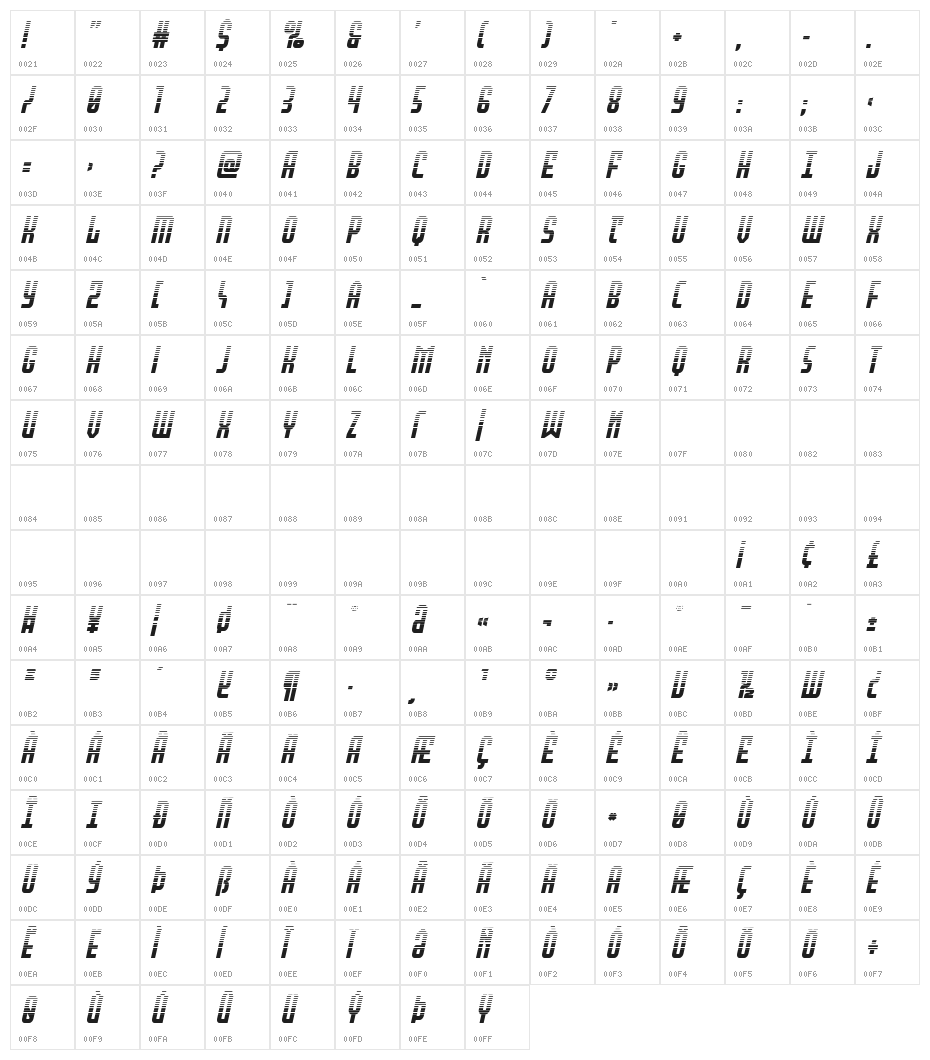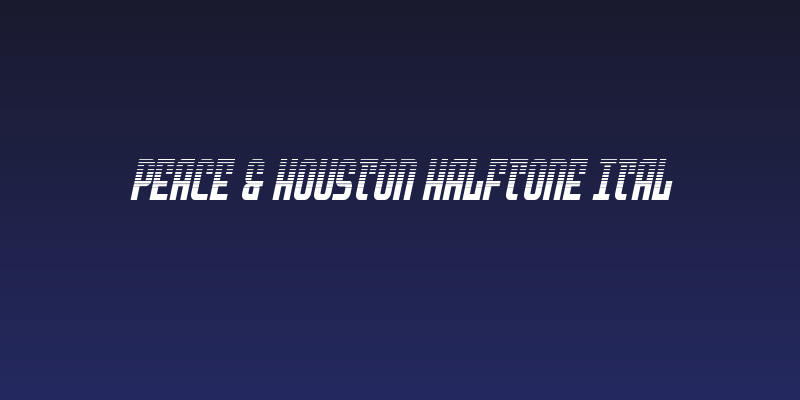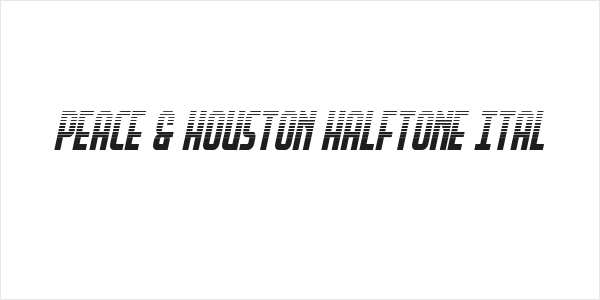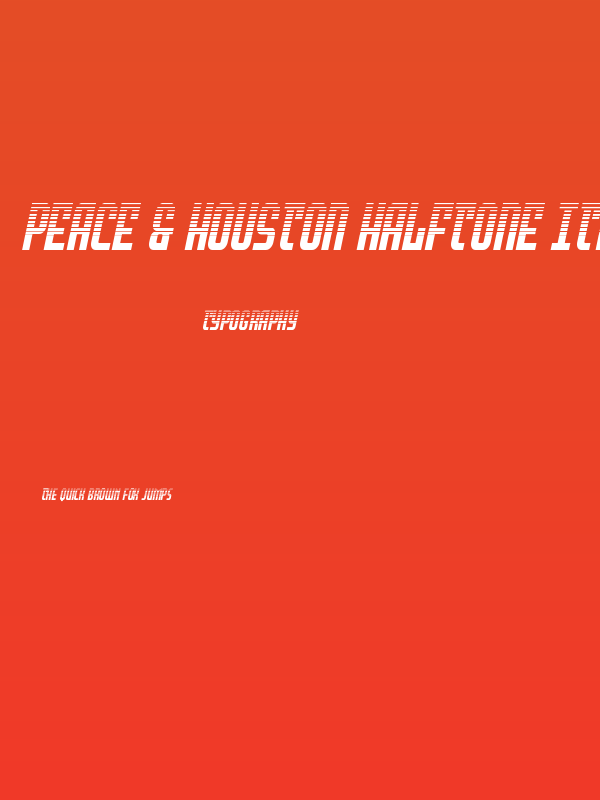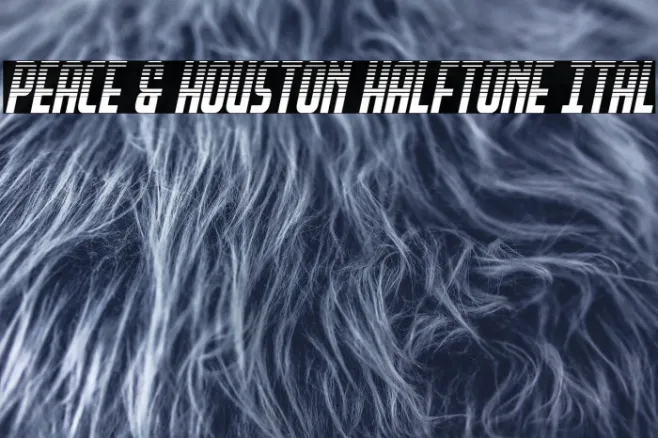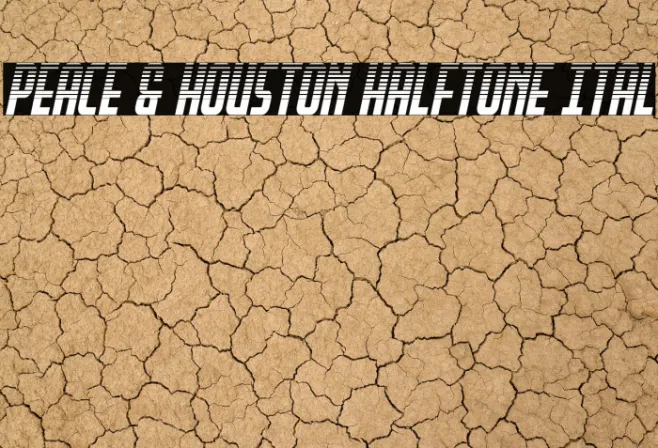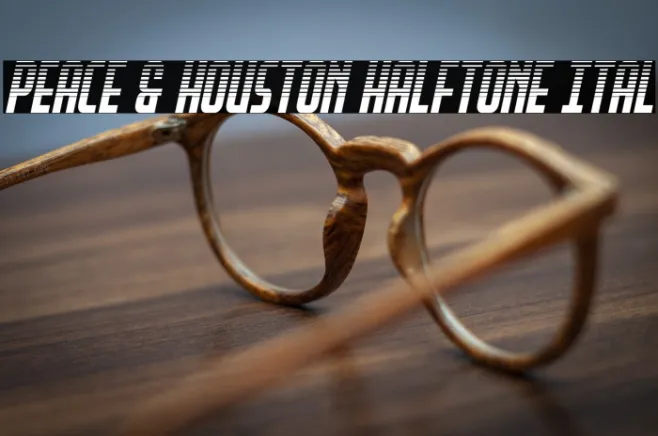
Peace & Houston Halftone Ital Font
Peace & Houston Halftone Ital Description
This font features a bold, modern design with a halftone effect that gives it a dynamic and energetic appearance. The characters are italicized, adding a sense of motion and speed. The uppercase and lowercase letters, along with numbers and special characters, are all designed with a consistent style that emphasizes horizontal lines and a gradient-like effect. This creates a visually striking look that is both futuristic and edgy. The font's unique style makes it ideal for projects that require a strong visual impact.
| Proposed Projects | Ideal for sports branding, music album covers, event posters, and tech-related designs. |